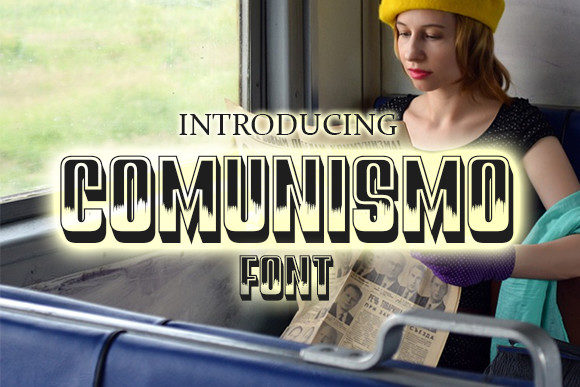
Behold, Comunismo Font, the spectacular 3D decorative font poised to transform your designs into captivating masterpieces. Unleash your creativity and embark on an artistic journey, letting Comunismo guide you towards design excellence. This font family is more than just a collection of letters; it's an open door to a world of limitless possibilities, inviting you to explore its endless variations and revel in the beauty of three-dimensional typography.
Crafted with meticulous precision by the visionary artist vladimirnikolic, Comunismo Font stands as a testament to innovation and creativity. Its striking three-dimensional structure adds depth and dimension to your designs, demanding attention and leaving a lasting impression. Whether you're a seasoned designer or just starting your creative journey, Comunismo Font is your gateway to typographic brilliance.
Picture yourself crafting stunning logos that leap off the screen, business cards that command attention, or social media graphics that captivate audiences. With Comunismo Font, you'll weave words into works of art, turning ordinary text into extraordinary visual experiences. Its versatility extends beyond digital realms, too—engrave your designs onto physical objects, transforming everyday items into conversation pieces.
Comunismo Font is the key to unlocking your design potential. Let your imagination run wild as you discover the endless possibilities it holds. Embrace the allure of three-dimensional typography and watch your designs take on a life of their own. The time is now to elevate your creativity and leave an unforgettable mark on the world. Embrace Comunismo Font and let your designs shine brighter than ever before.